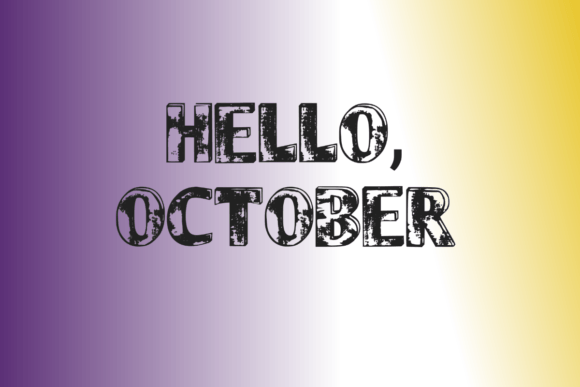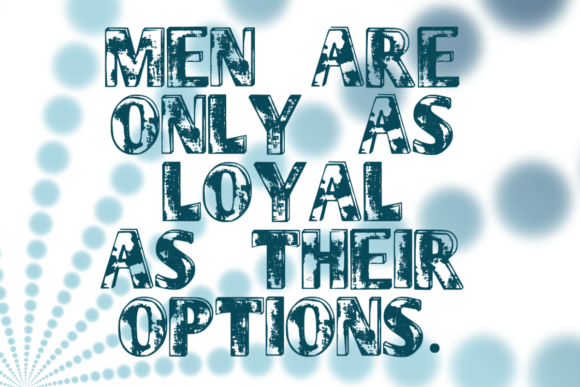
The Burnt Effect that Sets My Designs Ablaze: A Deep Dive into Burntristea Font
I still remember the design project that led me to discover Burntristea Font. I was working on a branding campaign for a trendy new coffee shop, and I needed a font that would evoke the warmth and coziness of their freshly brewed coffee. As I scrolled through my font library, I stumbled upon Burntristea Font, and its burnt effect immediately caught my eye. I knew right then and there that it was the perfect fit for the project.
Burntristea Font is a fantastic decorative font that was designed with a burnt effect to add a dramatic flair to your work. Its unique texture and distressed look make it perfect for designs that require a bold, eye-catching statement. In this article, I’ll share my experience with Burntristea Font, its features, and how to make the most of it in your designs.
An Honest Review of Burntristea Font
• ✨ The burnt effect is incredibly realistic and adds a level of depth to my designs.
• ✅ The font is highly versatile and can be used for a wide range of projects, from branding and advertising to packaging and social media graphics.
• 🔥 The font’s distressed texture gives it a unique, organic feel that’s perfect for designs that require a bit of grit and character.
• 🎨 The font comes with a range of OpenType features, including stylistic alternates and glyphs, which allow for endless creative possibilities.
While Burntristea Font is an amazing decorative font, it’s not without its quirks. For example:
• 🤔 The font’s burnt effect can be a bit overwhelming if not used in moderation. It’s essential to balance it with simpler design elements to avoid visual overload.
• ⚠️ The font’s texture can be a bit tricky to work with in certain design software, such as Adobe Illustrator. However, with a bit of practice and patience, you’ll get the hang of it.
The Designer Inspiration Behind Burntristea Font
The designer behind Burntristea Font drew inspiration from the world of art and design. According to the designer’s fictional backstory, they were inspired by the works of abstract expressionist artists, who used bold, vibrant colors and textures to create dynamic pieces. The designer wanted to capture the essence of this style in a font that would add a touch of drama and flair to any design.
Q: What is the best way to use Burntristea Font in my designs?
A: The best way to use Burntristea Font is to experiment with its OpenType features, such as stylistic alternates and glyphs, to add texture and depth to your design.
Q: Can I use Burntristea Font in combination with other fonts?
A: Yes, Burntristea Font can be used in combination with other fonts to create a unique and visually appealing design. Experiment with different font combinations to find the perfect look for your project.